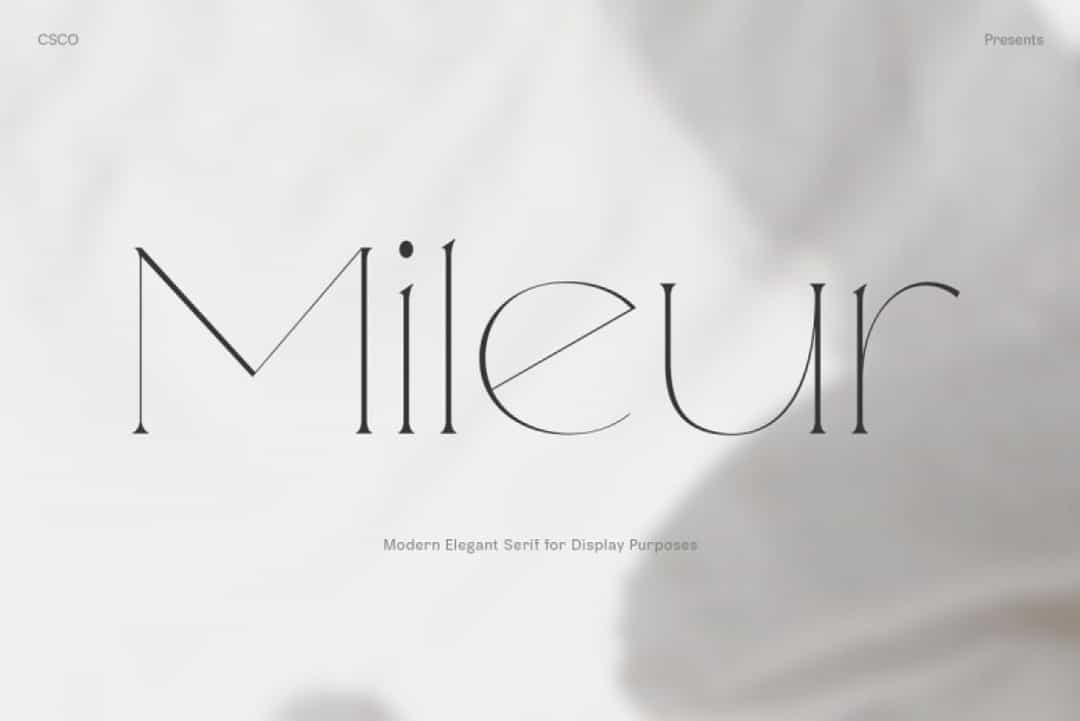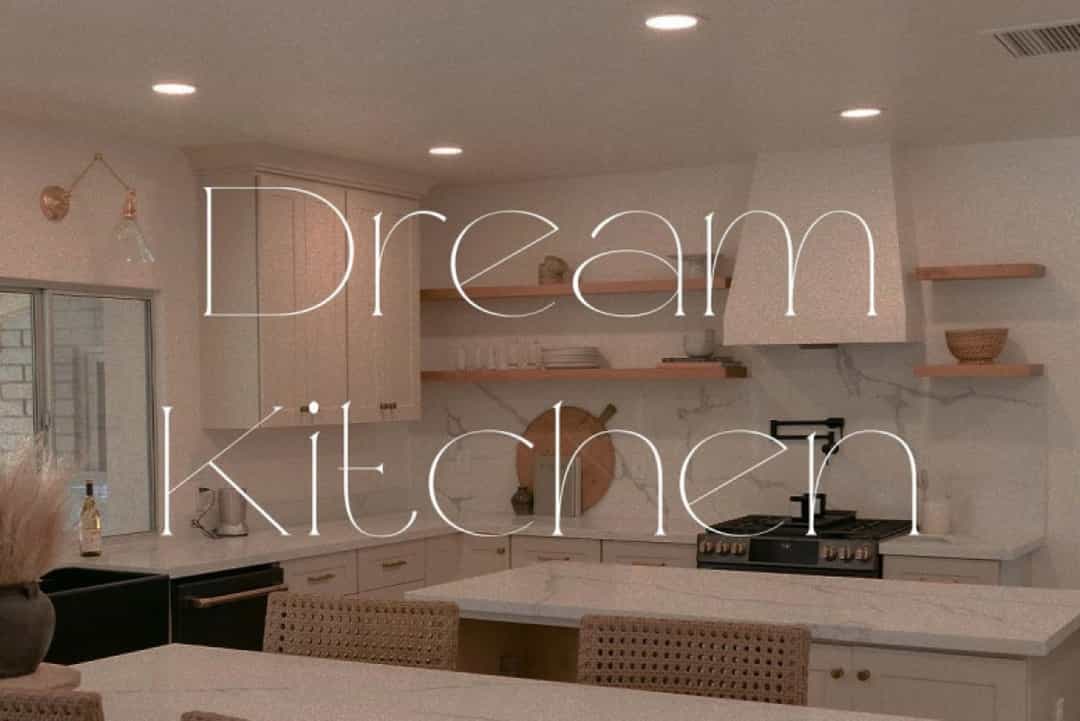
Mileur is an elegant and sophisticated contemporary serif font with thin strokes, low contrast modulation and small serifs, making it perfect for use in various design-related projects such as printing materials. Simply think of Mileur for making your work come to life more vibrantly than ever!